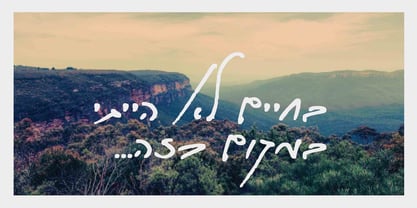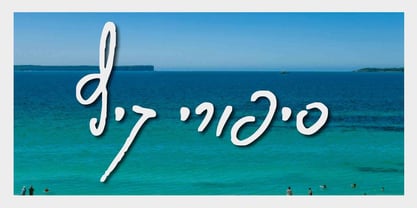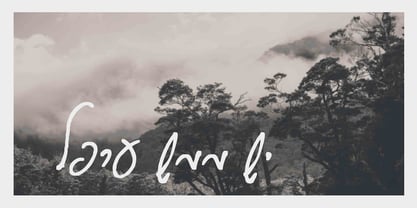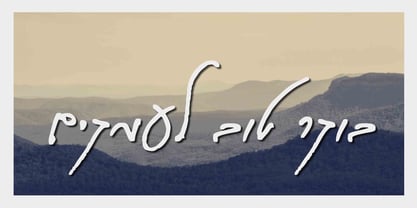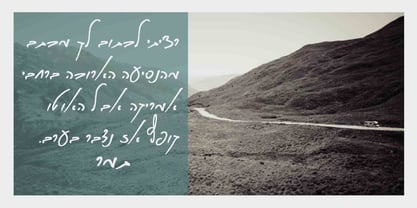
Rovny
by Masterfont
The Rovny Font Family was designed by Rafi Rovny and published by Masterfont. Rovny contains 1 styles. More about this family
This calligraphic scribble follows the traditional Hebrew type by intensive and free hand drawn lines.
Designers: Rafi Rovny
Foundry: Masterfont